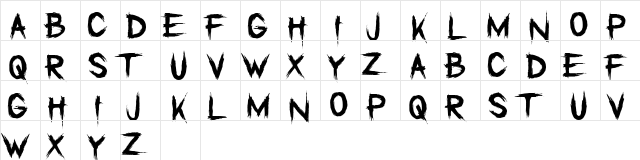
Marshal The Dead Regular
| Foundry | Font Monger & Chris Vile Fonts |
| Designer | Chris Vile |
Design Context for Marshal The Dead Typeface
Marshal The Dead is a composed and adaptable typeface that performs quietly and consistently across a wide range of design contexts.